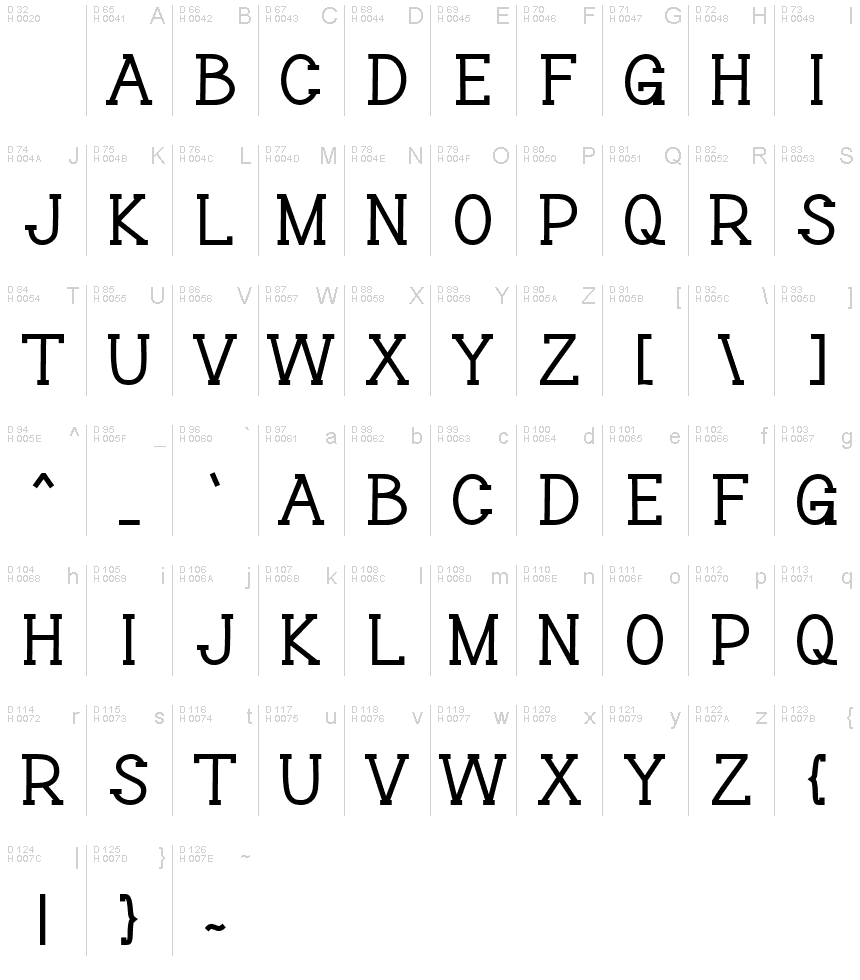
Aterline Bold
Introducing Aterline Bold, the newest addition to the Aterline font family designed by AEN Creative Studio in 2021. This slab serif font boasts a light weight, making it perfect for projects that require a bold yet understated look. Aterline Bold is versatile and suitable for a wide range of projects such as branding, packaging design, editorial design, and even web design. Its clean lines and modern aesthetic make it an excellent choice for designers who want to make an impact with their typography without overwhelming their audience. Try Aterline Bold today and take your designs to the next level!